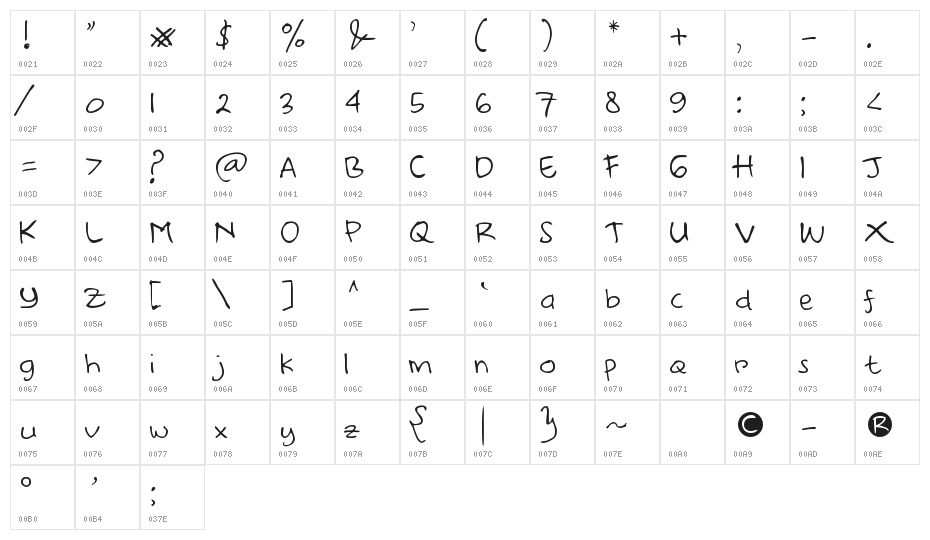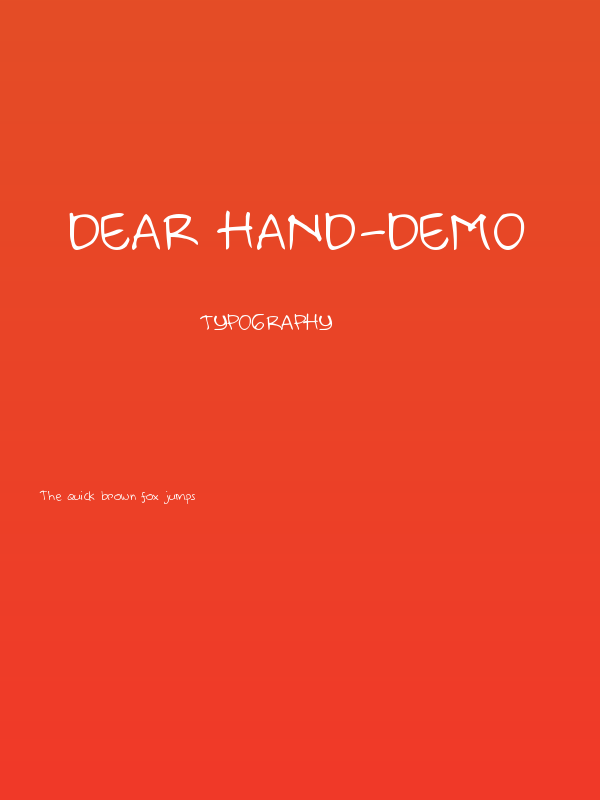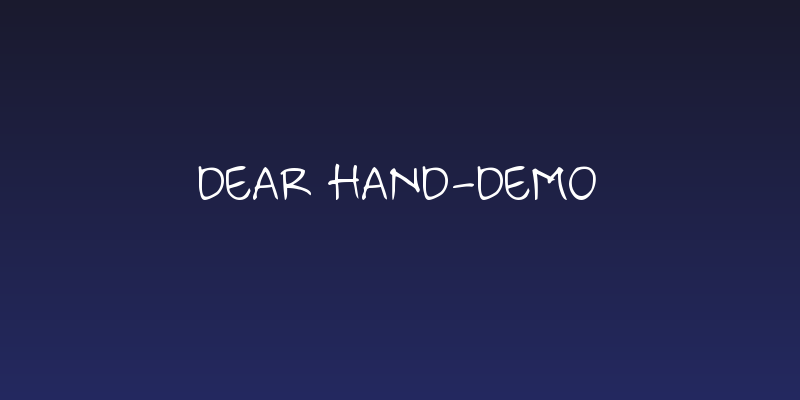
deAr Hand-demo Font
deAr Hand-demo Description
This font features a playful and casual handwritten style, characterized by its uneven strokes and organic flow. The letters have a natural, freeform appearance, with varying heights and widths that mimic the look of authentic handwriting. The uppercase letters are bold and slightly irregular, while the lowercase letters maintain a consistent yet informal style. Numbers and special characters follow the same handwritten aesthetic, adding to the font's cohesive look. The overall design is approachable and friendly, making it suitable for projects that require a personal touch.
| Use Case | Logos, Invitations, Personal Projects |
| Proposed Projects | Ideal for greeting cards, personal blogs, children's books, and informal branding. |